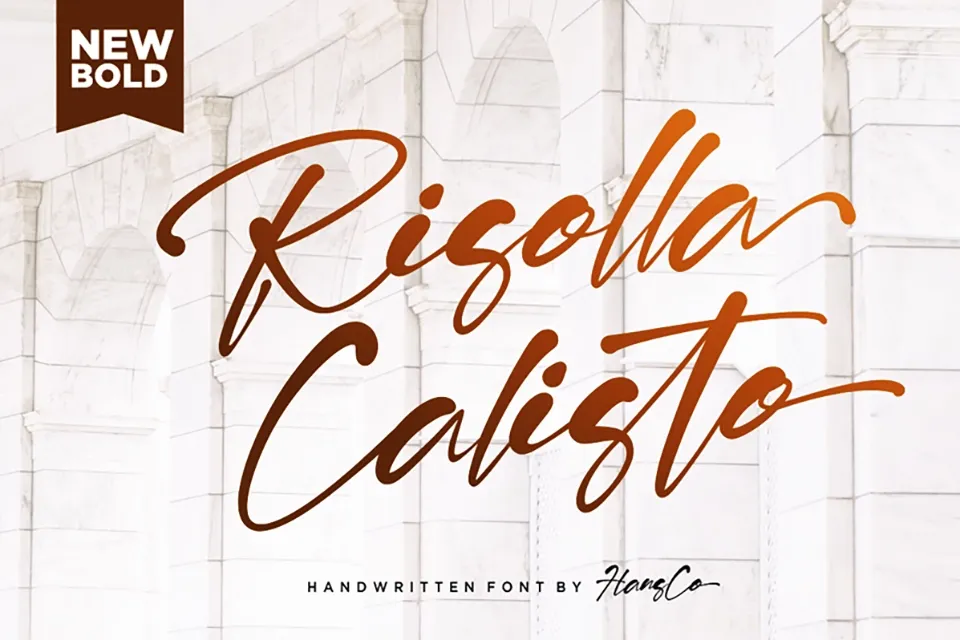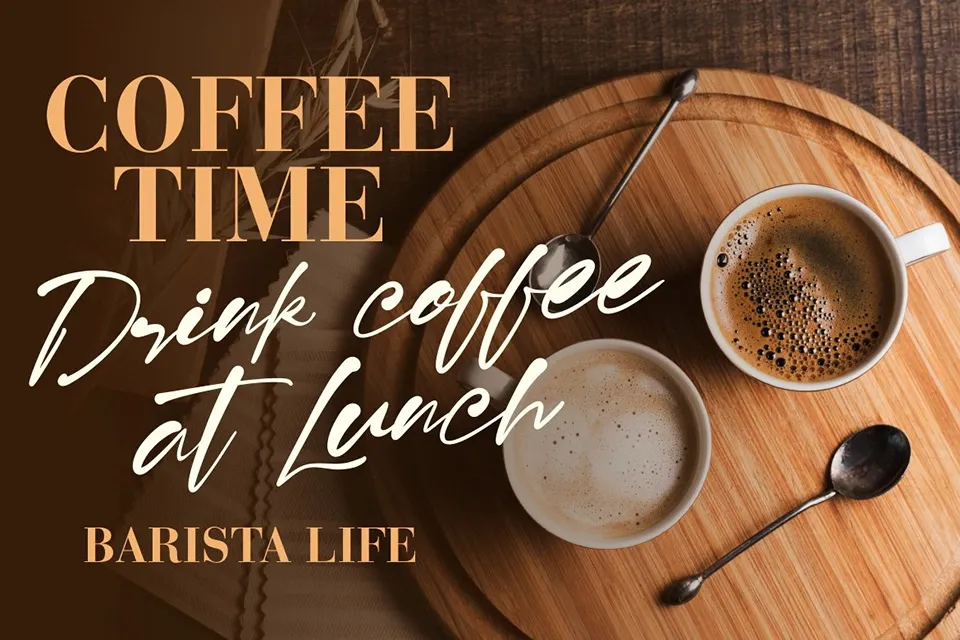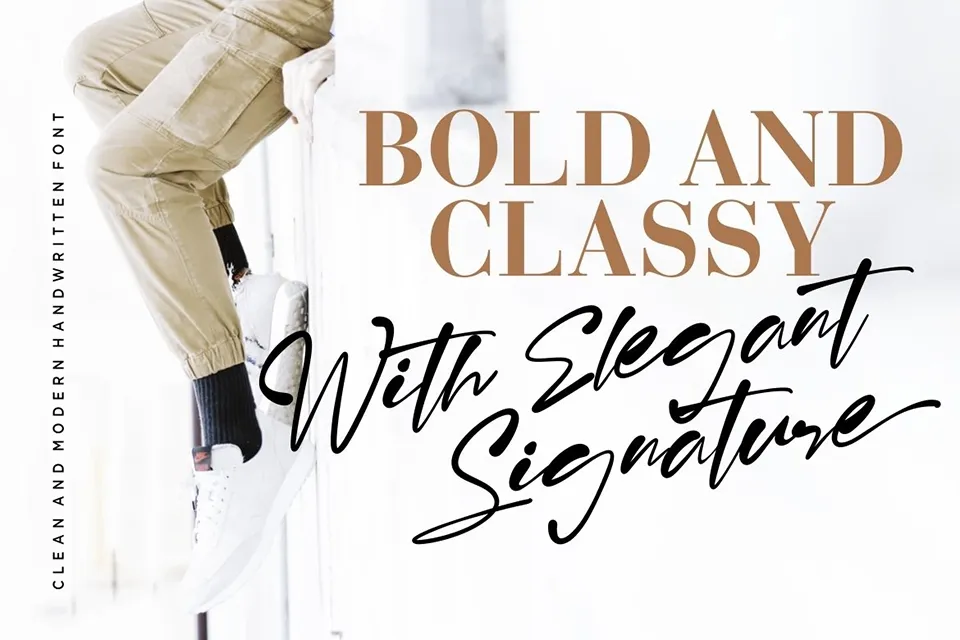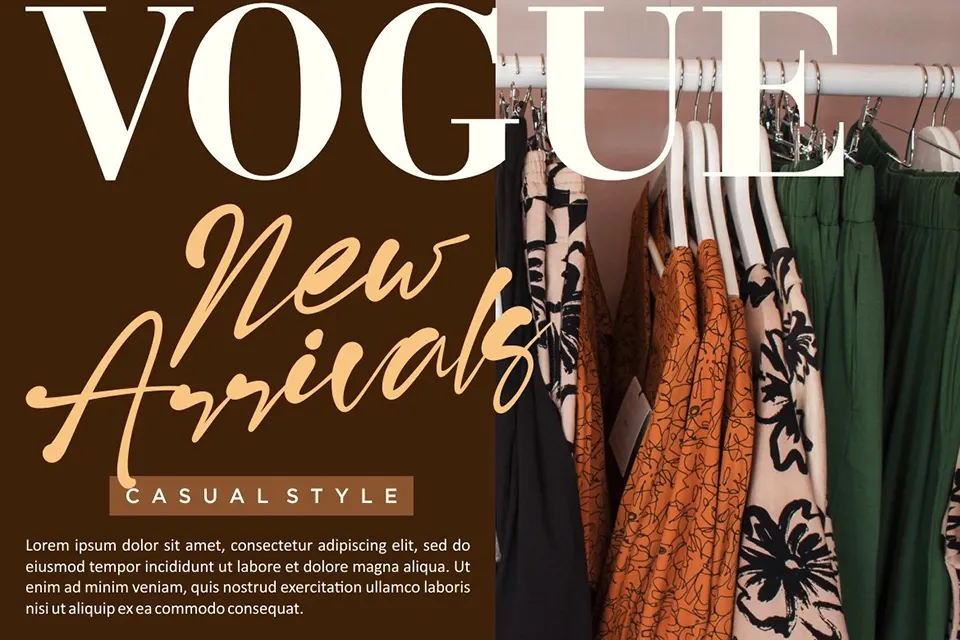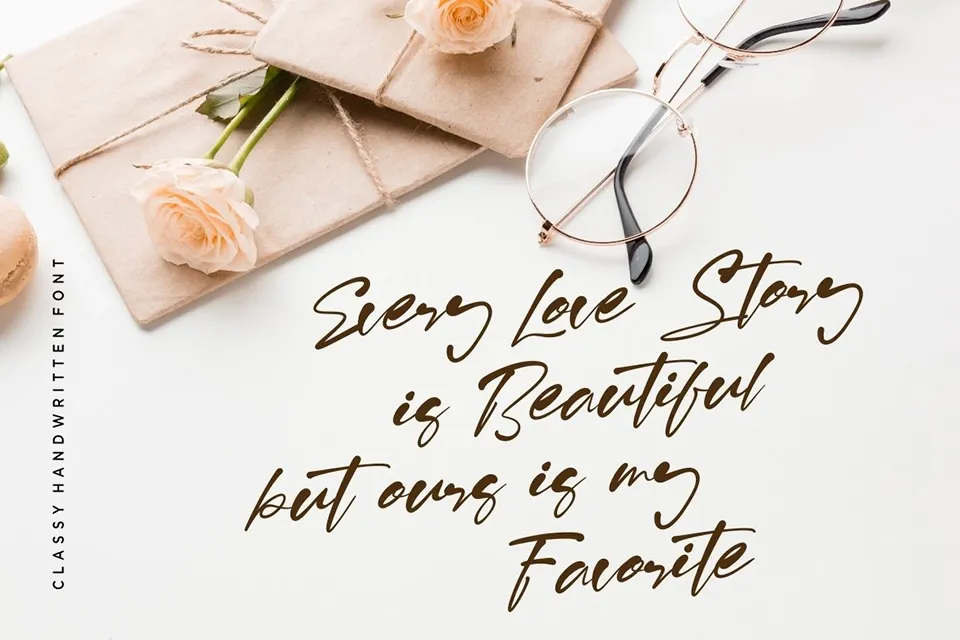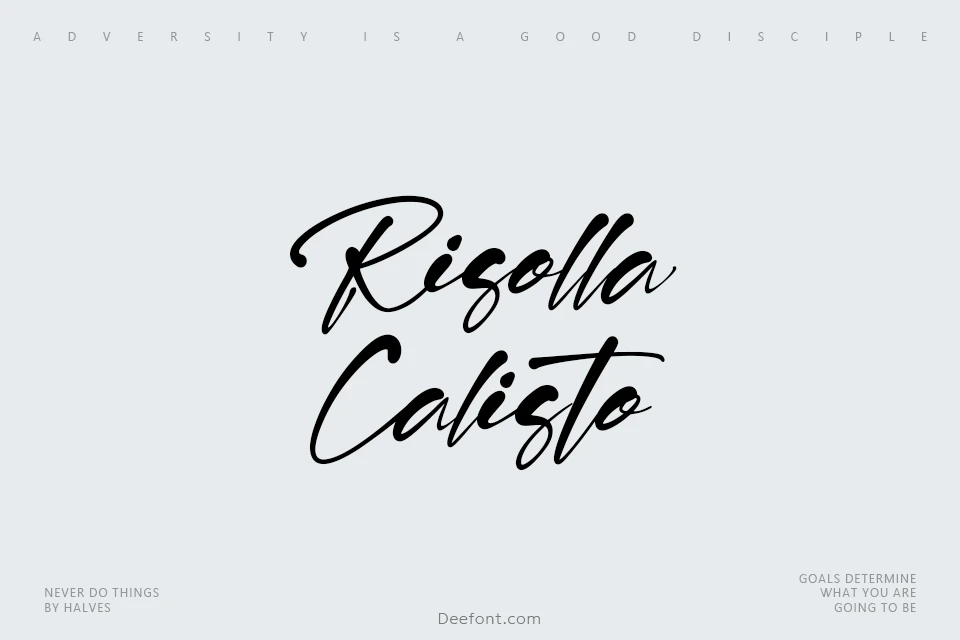
Risolla Calisto Script Font
Risolla Calisto Script Font is an elegant handwritten script font with a bold yet clean and modern appearance. Designed by HansCo, this font blends a slightly masculine feel with organic, authentic handwriting, making it ideal for a wide range of creative applications. It features uppercase and lowercase letters, numbers, punctuation, multilingual support, and a wealth of ligatures and swashes, ensuring versatility for branding, headlines, invitations, packaging, and more. The font is PUA encoded, allowing easy access to all its special glyphs and stylistic alternates, and is crafted to bring a charming, dynamic, and magical touch to your designs.